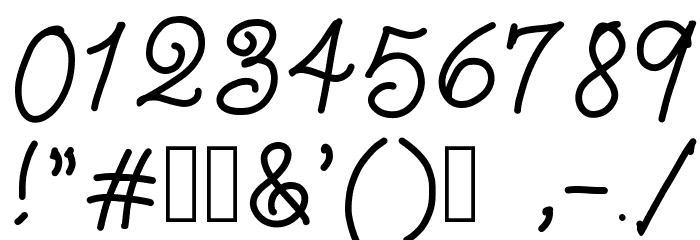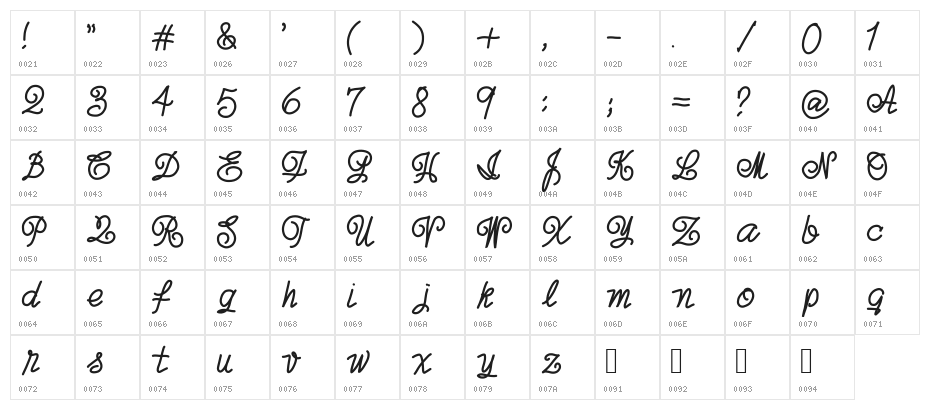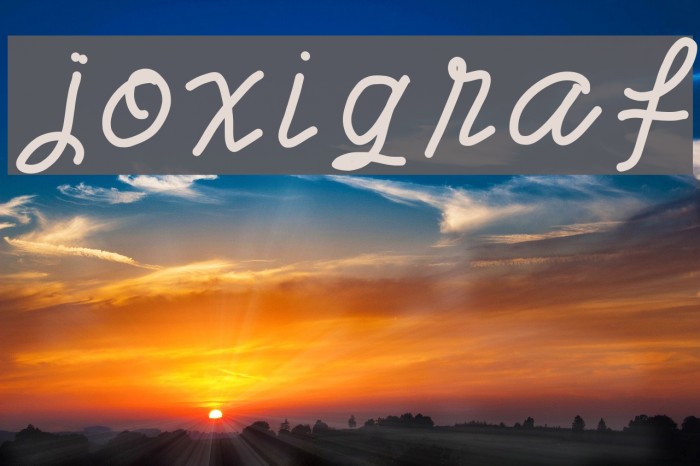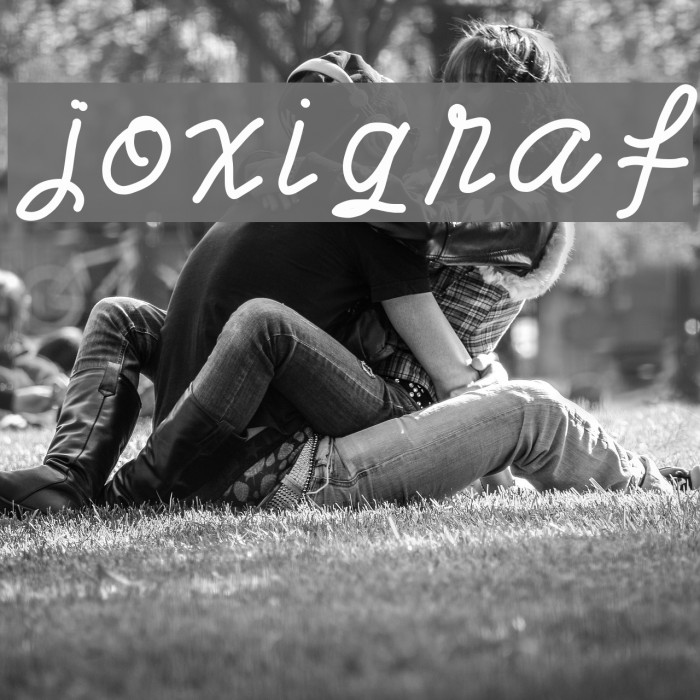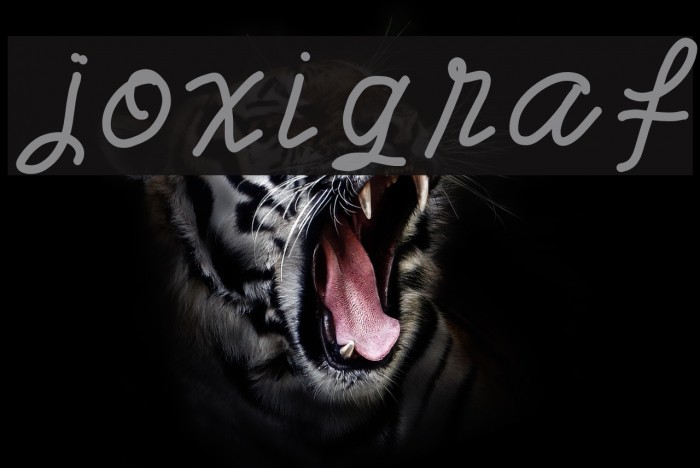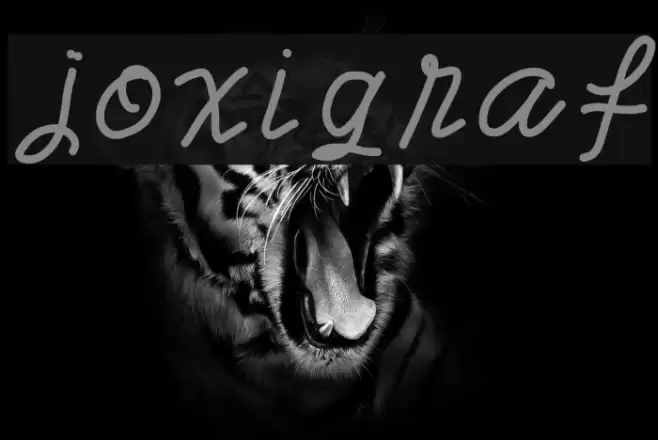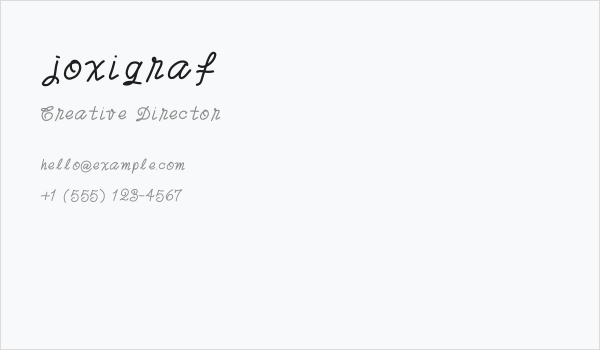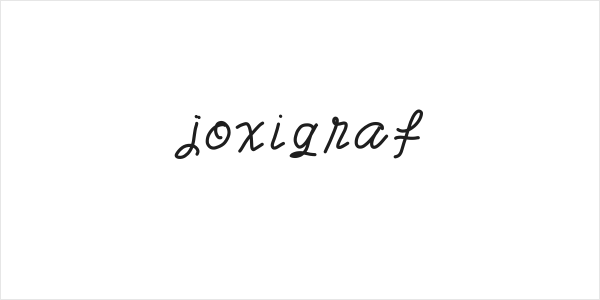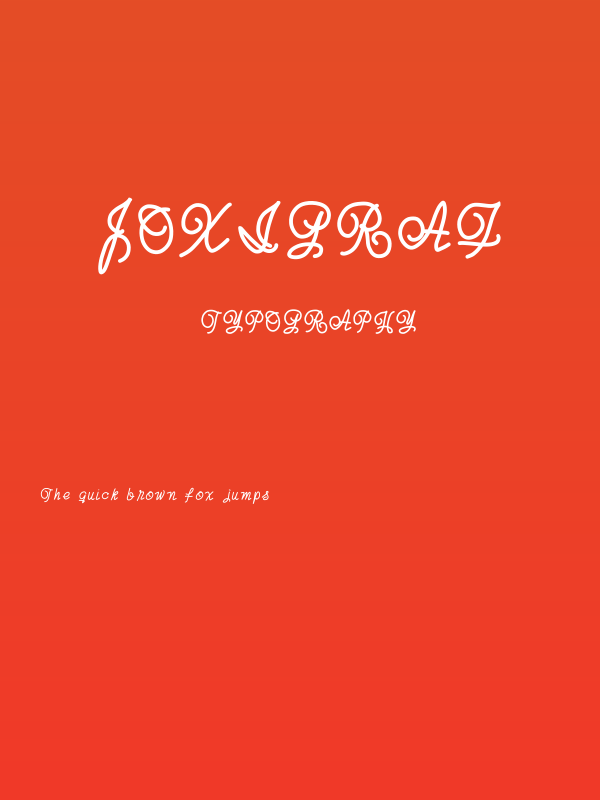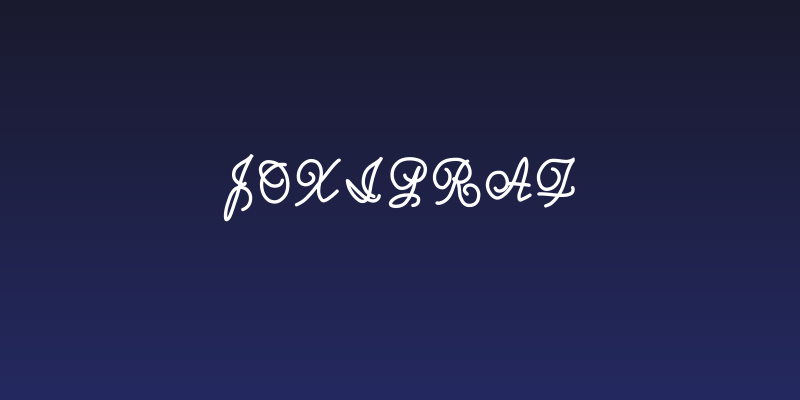
joxigraf Font
joxigraf Description
This font features a classic script style with elegant, flowing curves and a handwritten appearance. The uppercase letters are ornate, with intricate loops and swirls, while the lowercase letters maintain a more subdued yet still stylish form. The numerals are consistent with the overall script theme, offering a cohesive look across all characters. Special characters are thoughtfully designed to match the font's aesthetic, making it suitable for decorative purposes. The font's overall appearance is both sophisticated and playful, making it versatile for various design needs.
| Proposed Projects | Ideal for wedding invitations, greeting cards, logos, and branding materials that require a touch of elegance. |